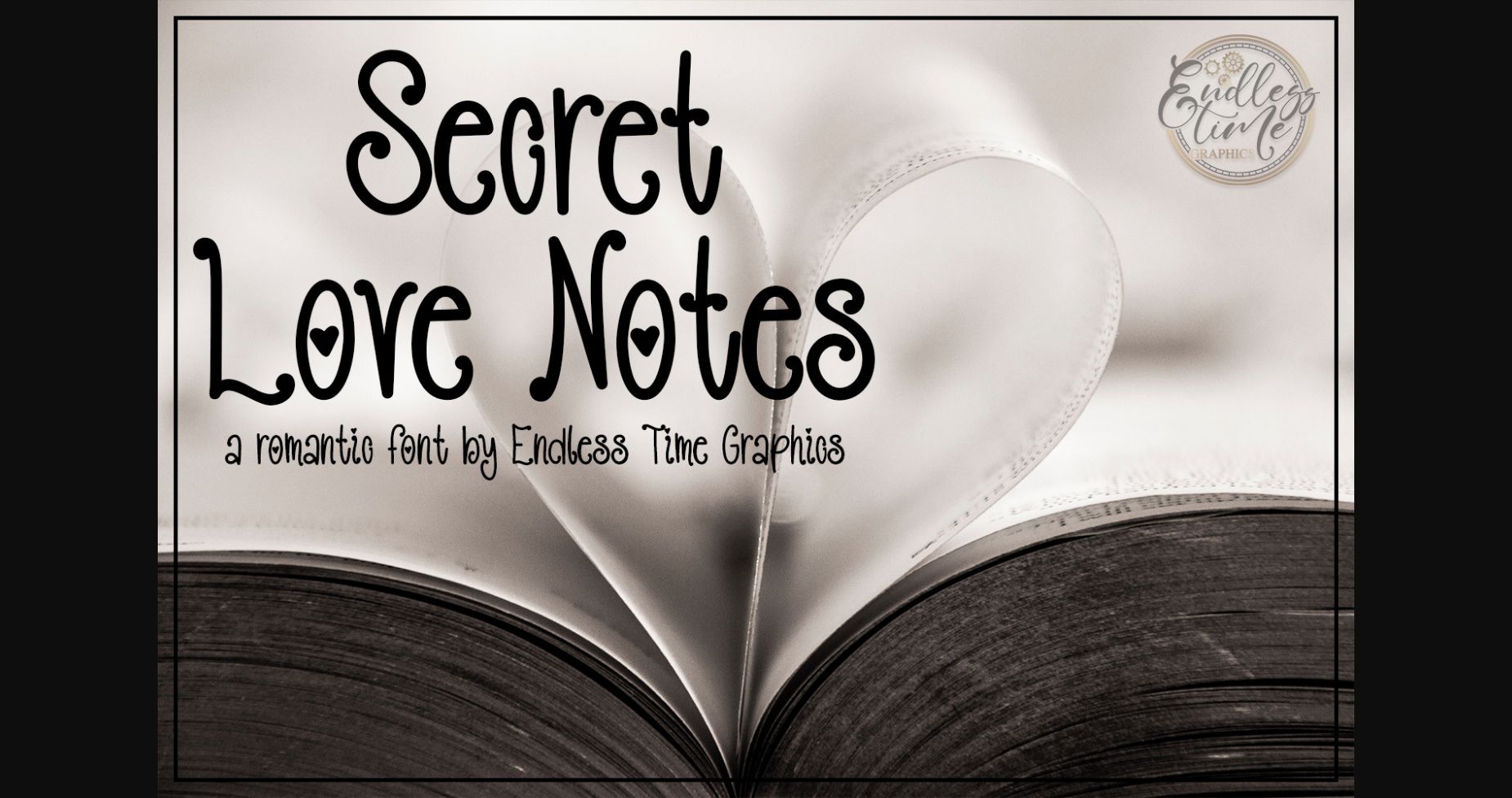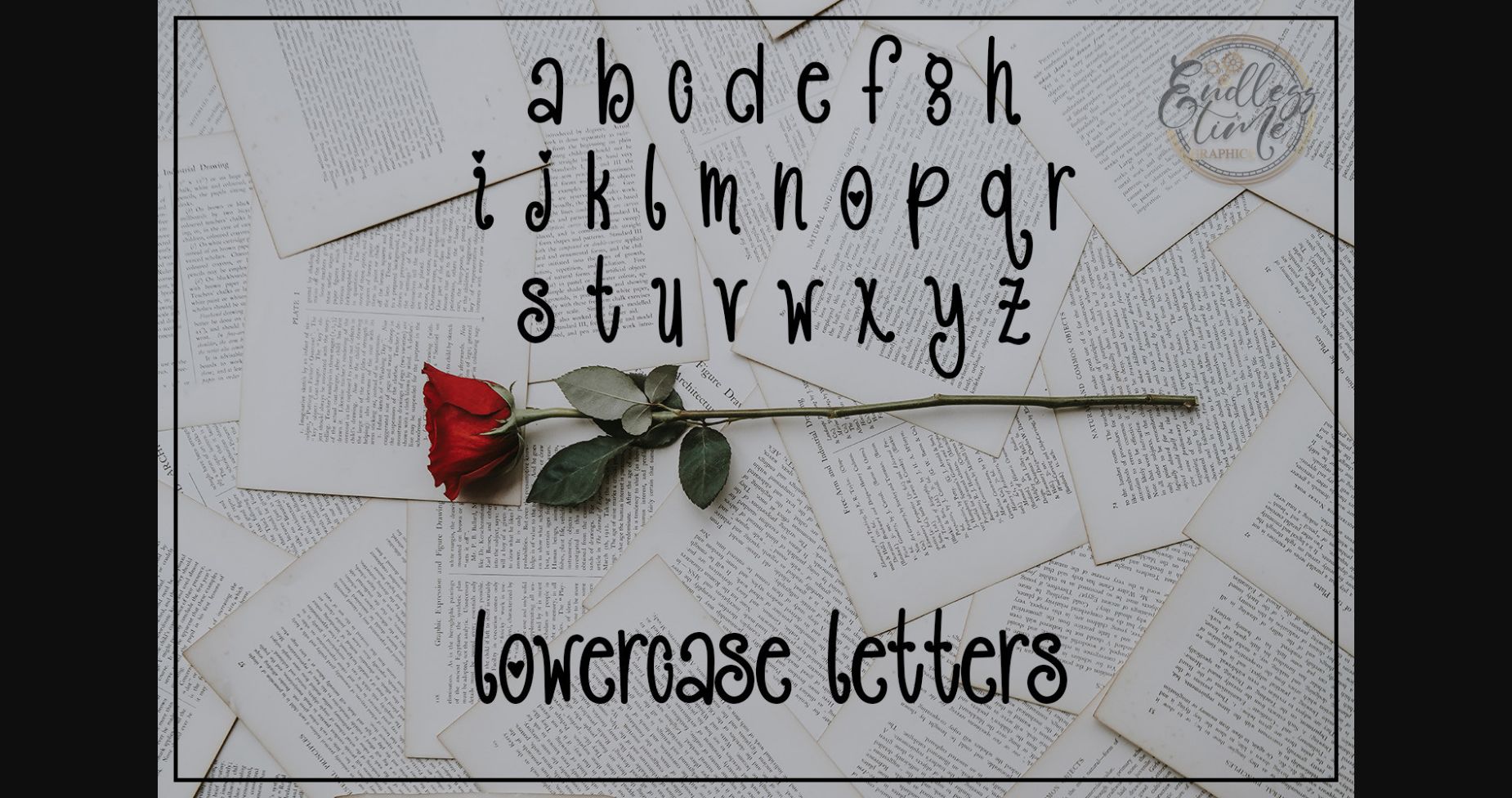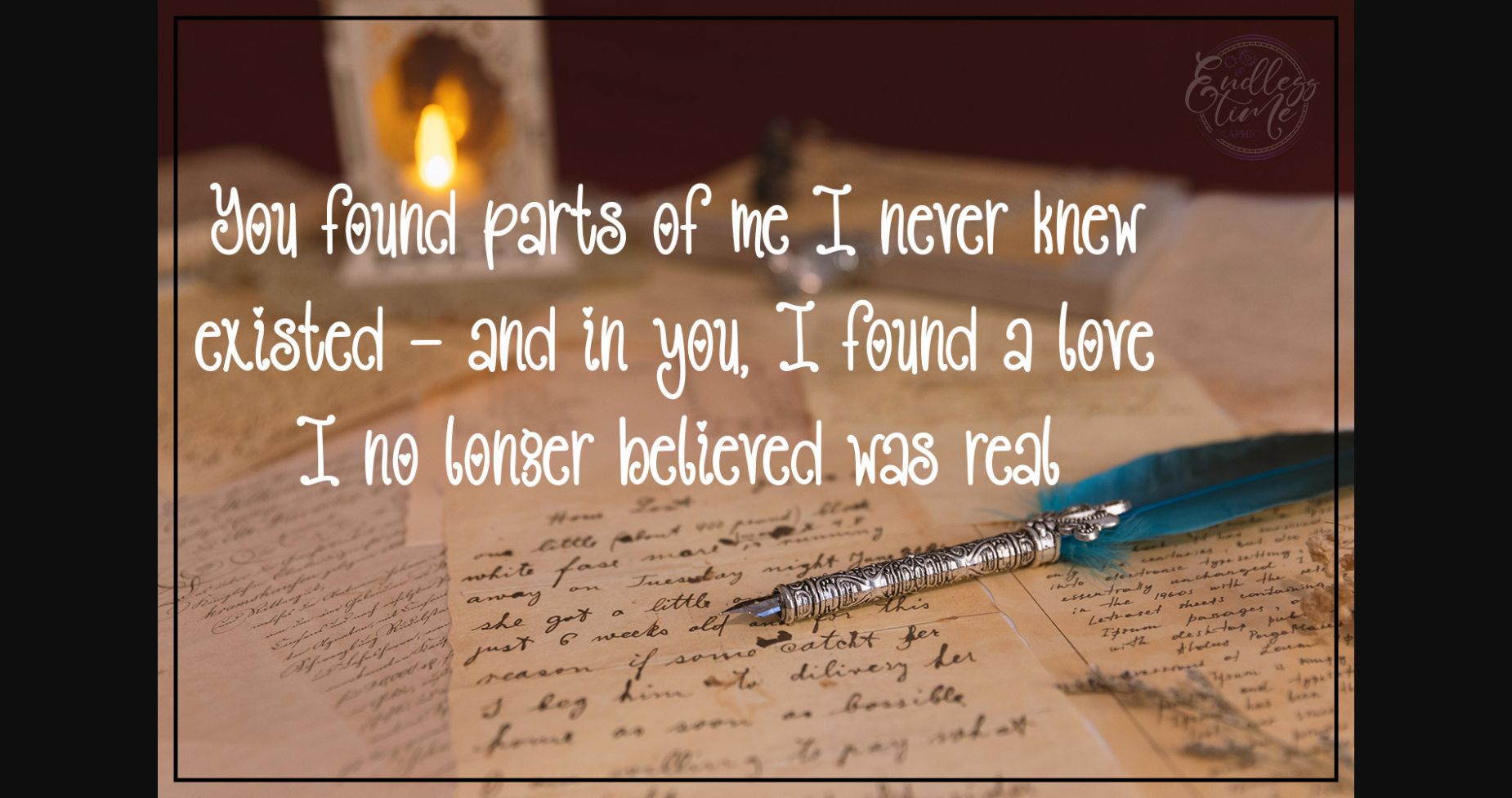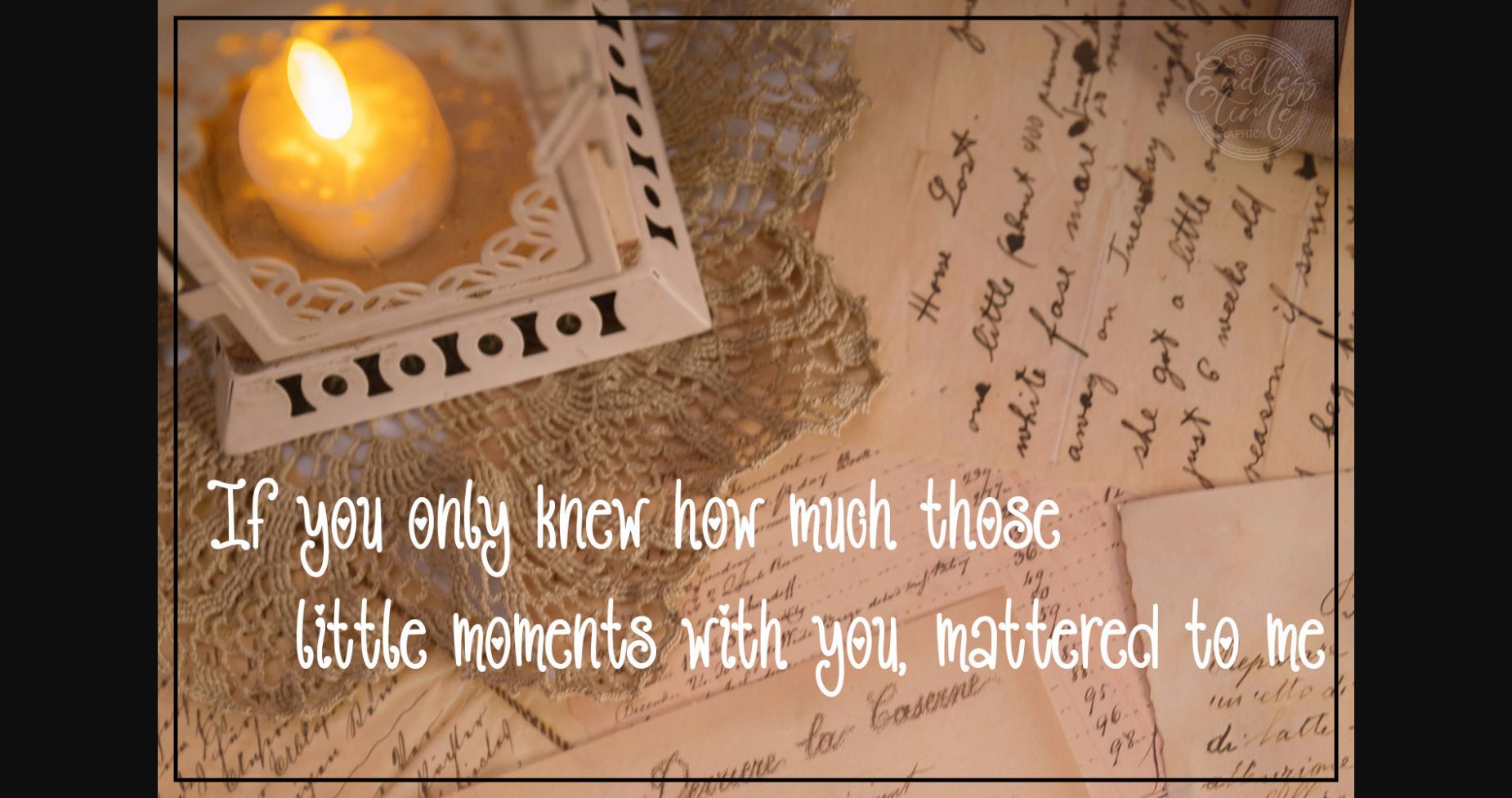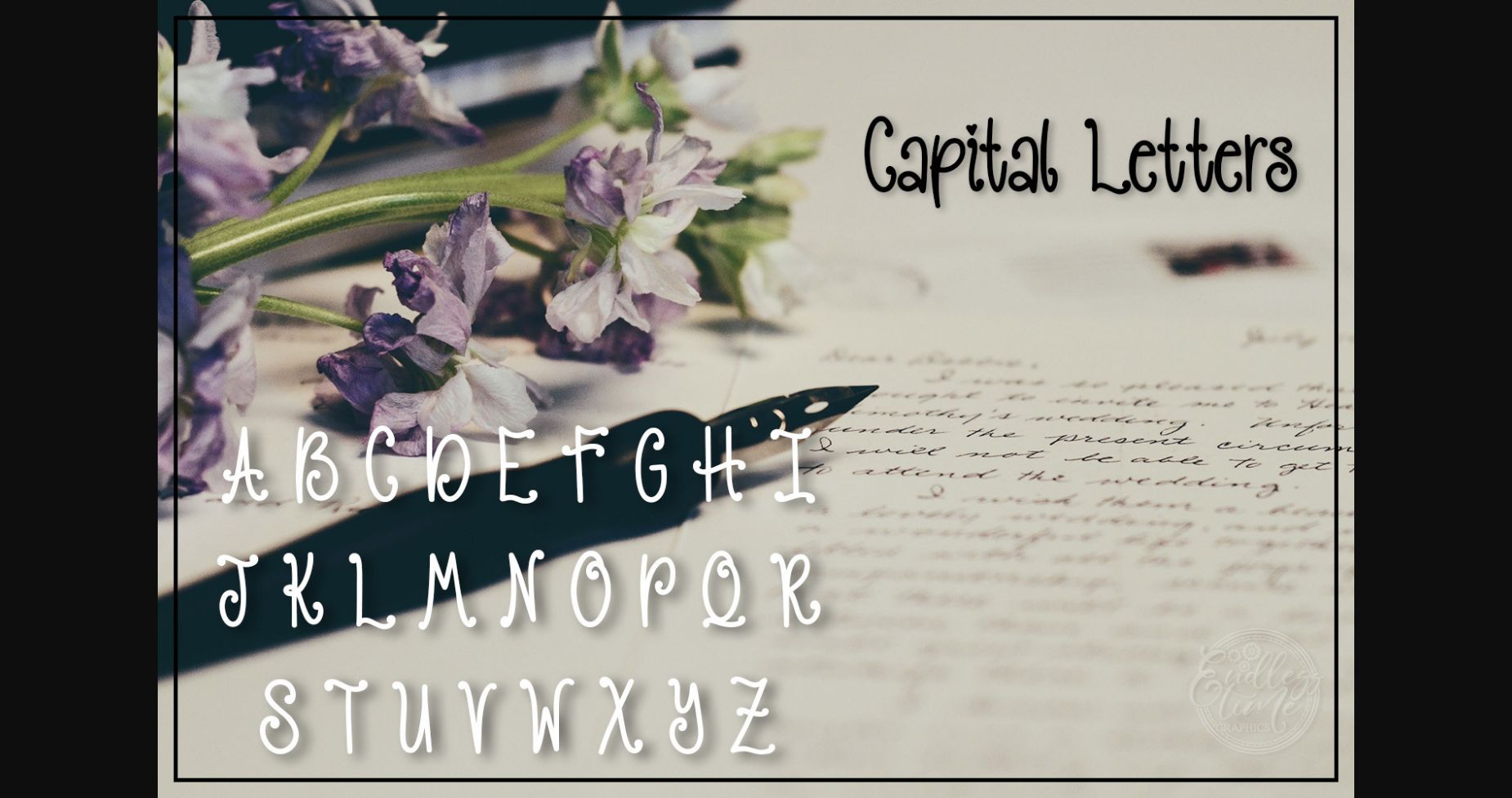
About Secret Love Notes Font
Introducing Secret Love Notes, a font crafted with passion and excitement. Get ready to express your heartfelt emotions with this perfect companion for Valentine’s Day. Let the charm of this font add an enchanting touch to your Secret Love Notes. As a multi-lingual font, it supports all Western European Languages, ensuring your messages can be shared in various contexts. With a complete set of uppercase and lowercase letters, numbers, punctuation marks, and symbols, this font offers versatility and convenience for all your creative endeavors. Embrace the beauty of Secret Love Notes and let your words ignite a spark of romance.